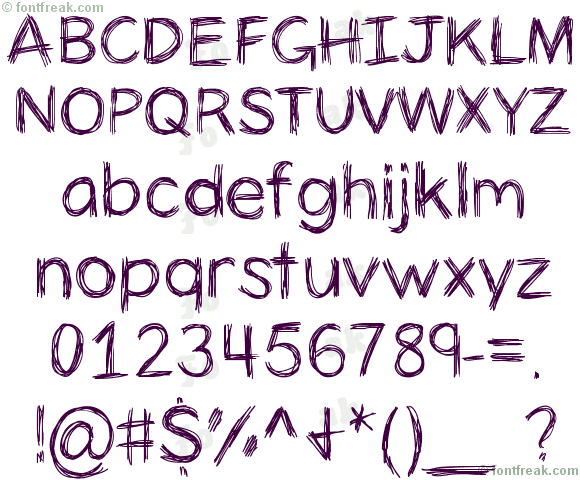
PanicStricken
About PanicStricken
PanicStricken is a unique display font designed by Vanessa Bays, available as a freeware option. This font features an informal, hand-drawn style that captures a sense of spontaneity and creativity. The strokes are uneven and slightly irregular, giving it a whimsical charm that is both engaging and approachable. The overall look is characterized by a medium stroke weight, with a varying contrast that adds to its playful nature. The spacing is generous, allowing each letter to breathe while maintaining a cohesive appearance.
PanicStricken is ideal for various creative projects. Its distinctive style makes it an excellent choice for crafting eye-catching movie posters, where a sense of urgency or excitement is needed. Additionally, this font can add a personal touch to wedding invitations, making them feel intimate and unique. It works well for children's book covers, inviting young readers with its fun and quirky design. Furthermore, restaurant menus can benefit from its playful aesthetic, especially in establishments aiming to convey a casual, friendly vibe.
What sets the PanicStricken font apart is its ability to evoke emotion and personality. Its hand-crafted appearance allows for a sense of authenticity, making it a versatile choice for projects that require a balance of fun and professionalism. Whether you’re designing for print or digital media, a PanicStricken font free download can elevate your work and help you connect with your audience in a meaningful way.